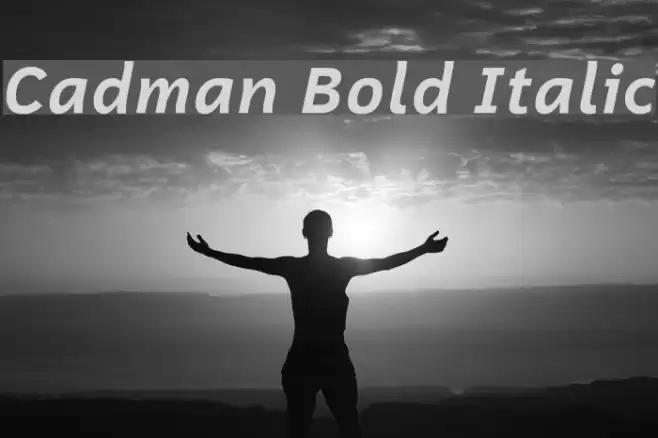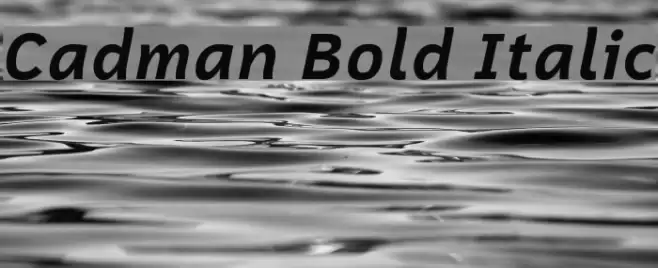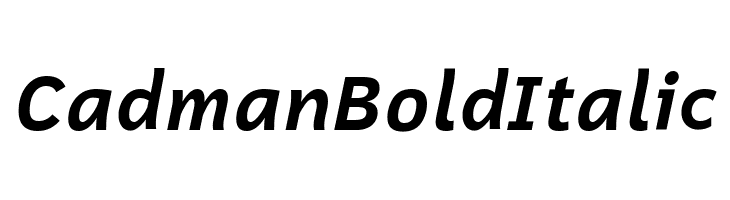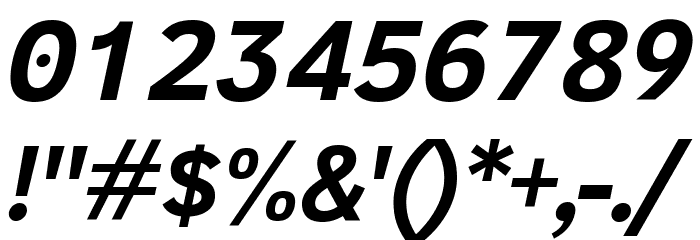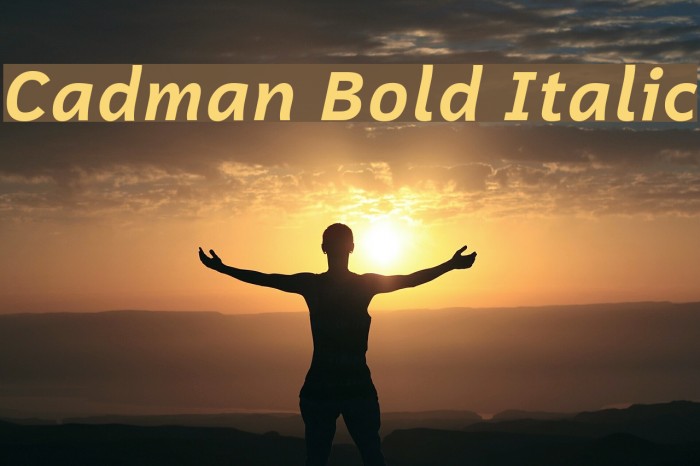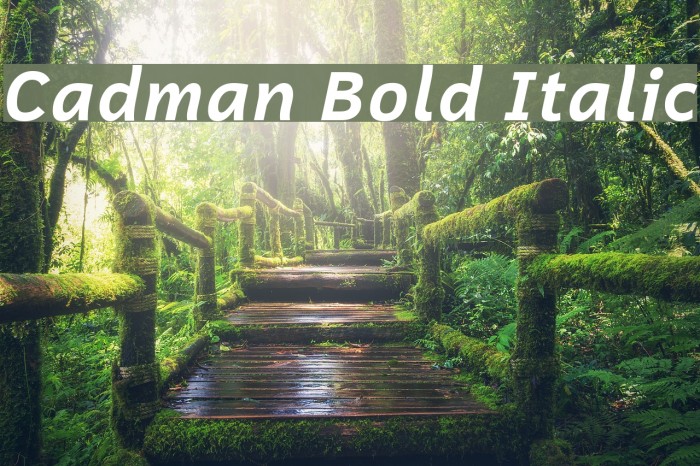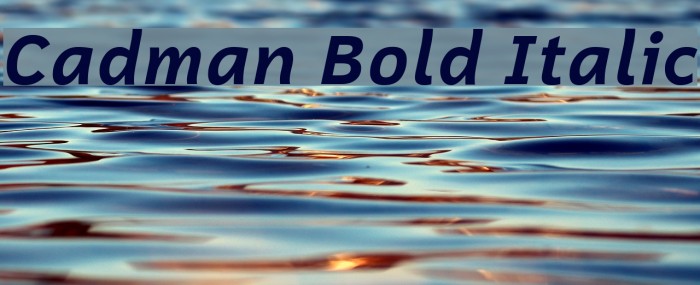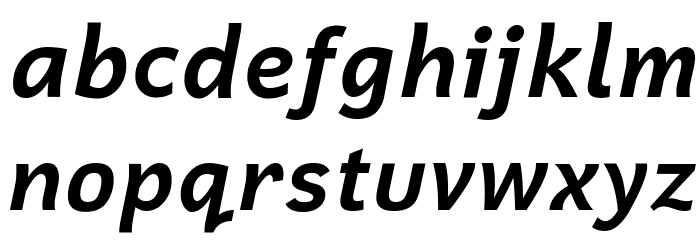
Cadman Bold Italic Font
Cadman Bold Italic Description
This typeface exhibits a bold and italicized style, characterized by its strong presence and dynamic slant. The letters are well-defined with a consistent stroke width, providing a sense of stability and confidence. The italic angle adds a sense of motion and elegance, making it suitable for attention-grabbing headlines. The numerals and special characters maintain the same bold and italicized style, ensuring uniformity across all text elements. The overall design is modern and versatile, suitable for various digital and print applications.
A bold, italicized typeface with a modern and dynamic style from Uncategorized fonts.
- Proposed Projects: Ideal for branding, advertising, headlines, and digital media where a strong, modern presence is required.
- Use Case: Headlines, Logos, Branding